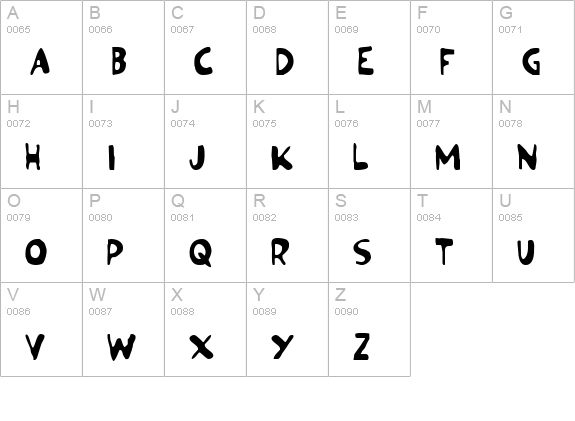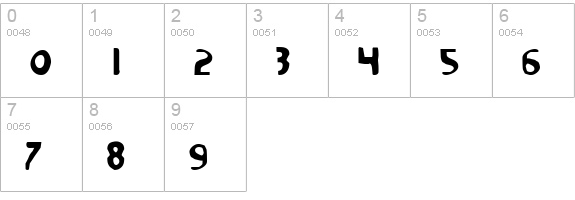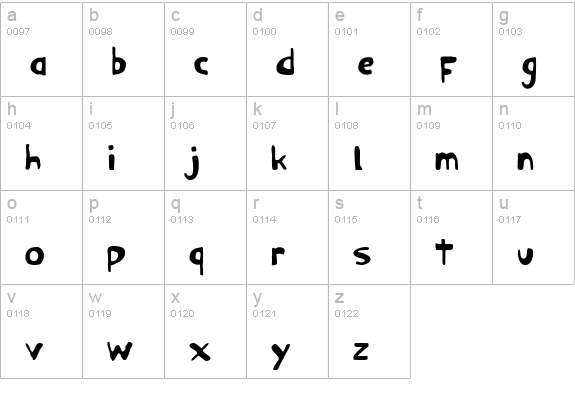
Ozymandias Font Details
Introducing Ozymandias font - a unique and modern typeface that exudes elegance and sophistication. With its sleek lines and stylish curves, Ozymandias is perfect for creating eye-catching designs that demand attention. This versatile font is ideal for a wide range of projects, from branding and advertising to invitations and social media graphics. What sets Ozymandias font apart is not just its striking appearance, but also the fact that it is completely free to download. Yes, you read that right - Ozymandias font is freely available for download at FontsMarket.com, making it accessible to designers and creatives of all levels. Don't miss out on the opportunity to add this stunning font to your collection and take your designs to the next level. Download Ozymandias font today and let your creativity shine!